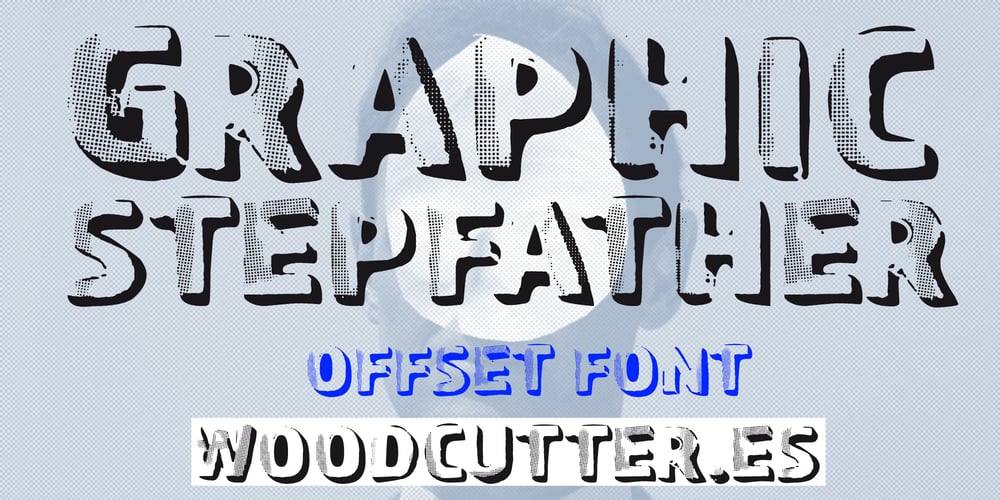
Graphic Stepfather Font Family was designed by Jordi Manero and published by Woodcutter. Graphic Stepfather contains 1 styles and family package options. “Graphic Stepfather” is an uppercase typeface that conveys the passage of time through its worn and incomplete design. Each letter appears eroded, with missing sections that give it a rough and aged look. The textured shadows add depth and a vintage vibe, enhancing the feeling of decay and deterioration. Perfect for projects seeking a raw, retro, or industrial aesthetic, this font combines visual strength with a torn and nostalgic texture. “Graphic Stepfather” is ideal for posters, editorial design, or any project that needs to convey impact and character.